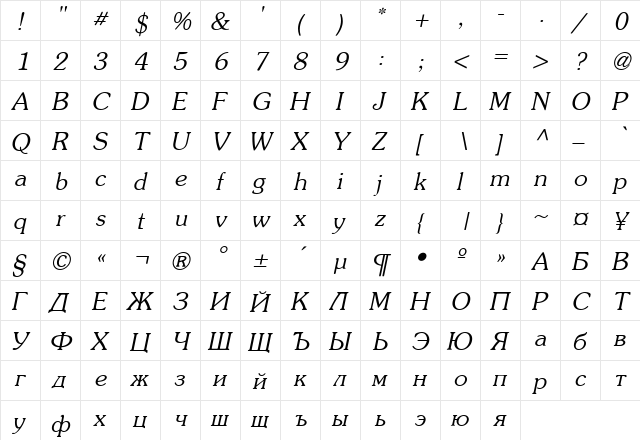
AG_Souvenir Italic
Design Context for AG_Souvenir Typeface
AG_Souvenir takes a measured approach to typography — its balanced proportions and neutral character make it a reliable workhorse for both digital and print work. Its italic angle brings a sense of urgency and motion to the letterforms.
Pro Tip: Try AG_Souvenir for annotation and caption copy alongside an upright companion — the contrast in angle creates a dynamic but ordered typographic system.